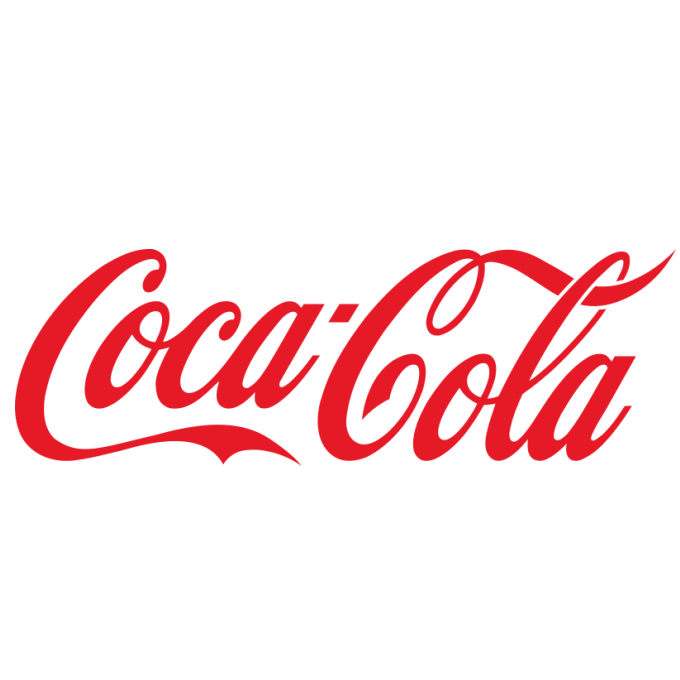
Coca Cola Can Logo Font
Coca Cola Can Logo Font. It is a text generator that designers use to get beautiful. Is coke short for coca cola?
Spencerian script has been used to execute the logotype. The coca cola logo font is a combination of the two ingredients of this carbonated drink, but only one font was used to represent it. The fonts in use section features posts about fonts used in logos, films, tv shows, video games, books and more;
The type design for a set of fonts is. A font is a set of printable or displayable text character s in a specific style and size. The coca cola logo happens to all swirl together and looks very round and loopy.
Furthermore, It Is Observed That The Lettering Of The Font Logo Is Identical To The Mustardo Script Font.
It is a text generator that designers use to get beautiful. Spencerian script has been used to execute the logotype. The coca cola logo font is a combination of the two ingredients of this carbonated drink, but only one font was used to represent it.
What Is The Font Type?
I like the part where the logo goes over the coca cola bottle. It is interesting to look at and. The font flourished and was widely in use in the us from 1850 to 1925.
This Font Has A Nice Style Of Product Content And Can Be Grouped Into Surf Fonts.